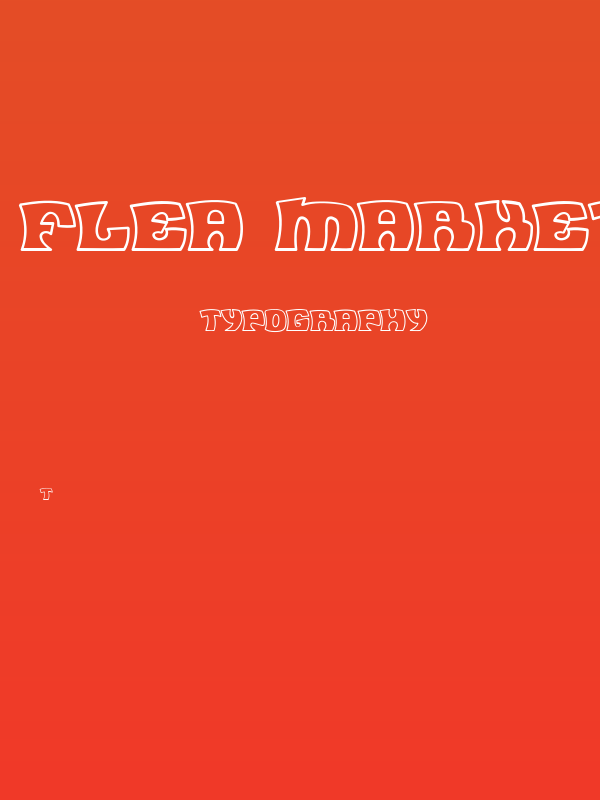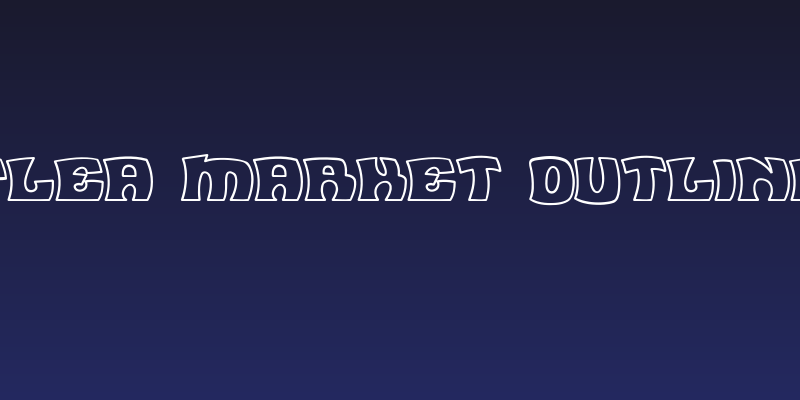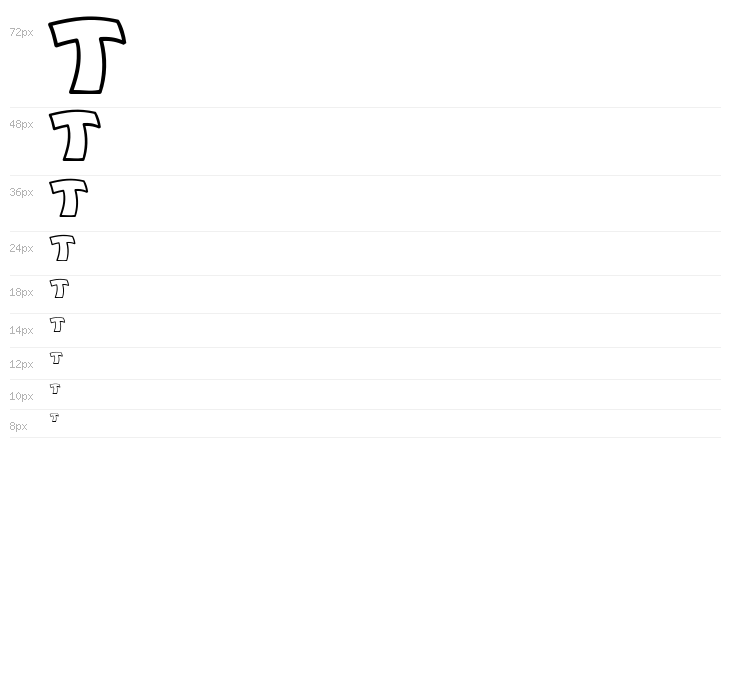
Flea Market Outline Font
Flea Market Outline Description
This font features a playful and bold outline style, characterized by its thick, rounded edges and whimsical shapes. Each letter is uniquely crafted with a slightly irregular form, giving it a hand-drawn, artistic feel. The outlines are consistent in thickness, providing a cohesive look across all characters. This font exudes a casual and fun vibe, making it ideal for creative and informal designs. Its distinct style captures attention and adds a lively touch to any project.
| Overall Style | Playful, Artistic |
| Proposed Projects | Ideal for posters, children's books, party invitations, and creative branding. |